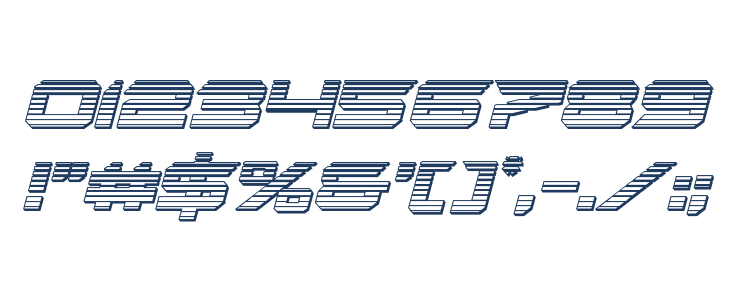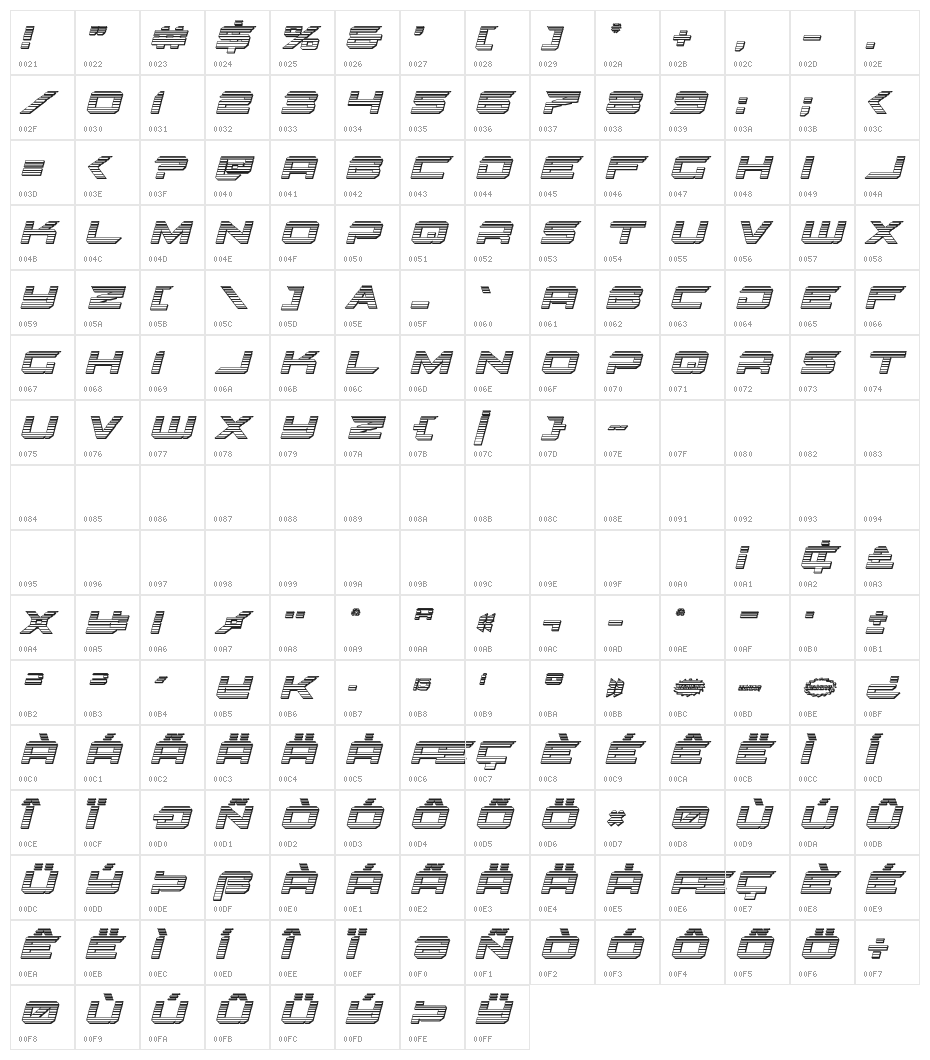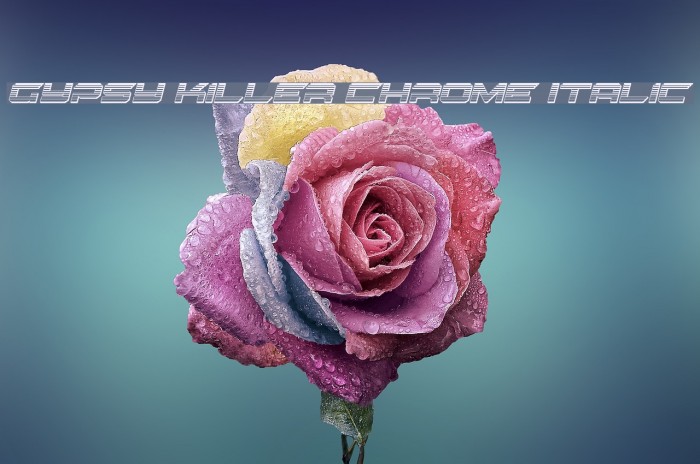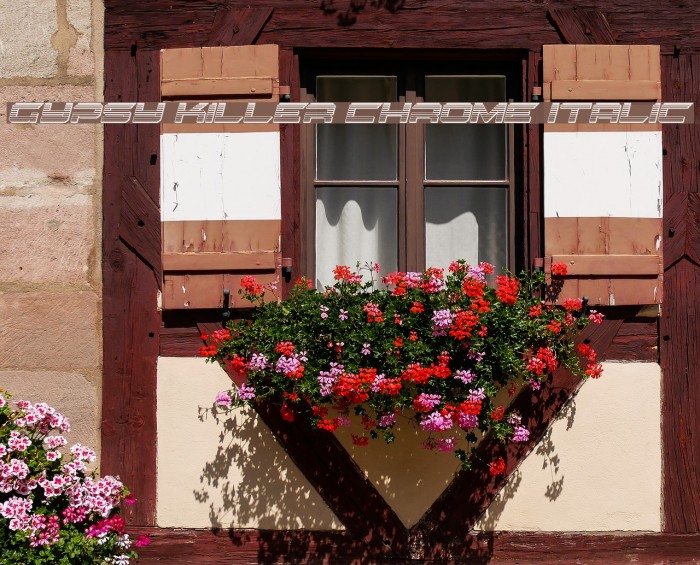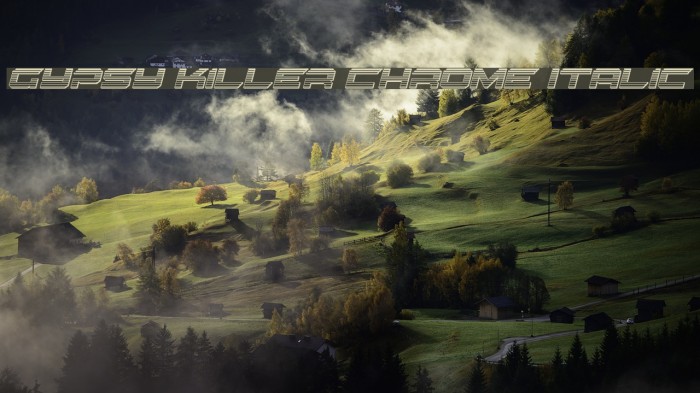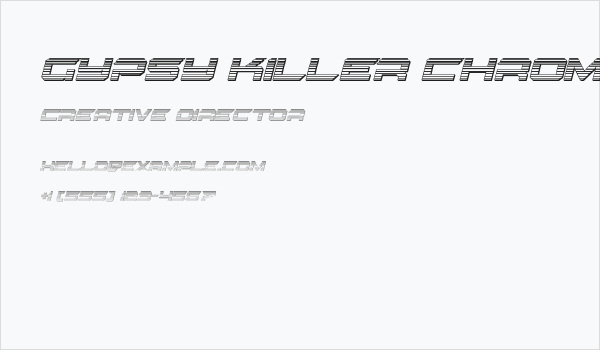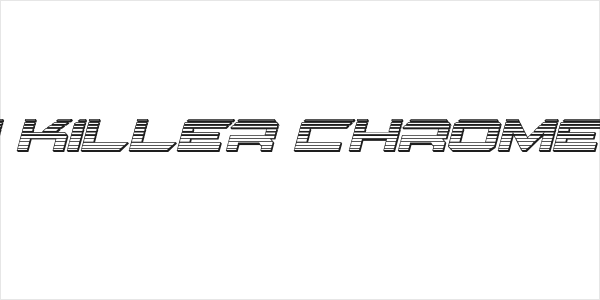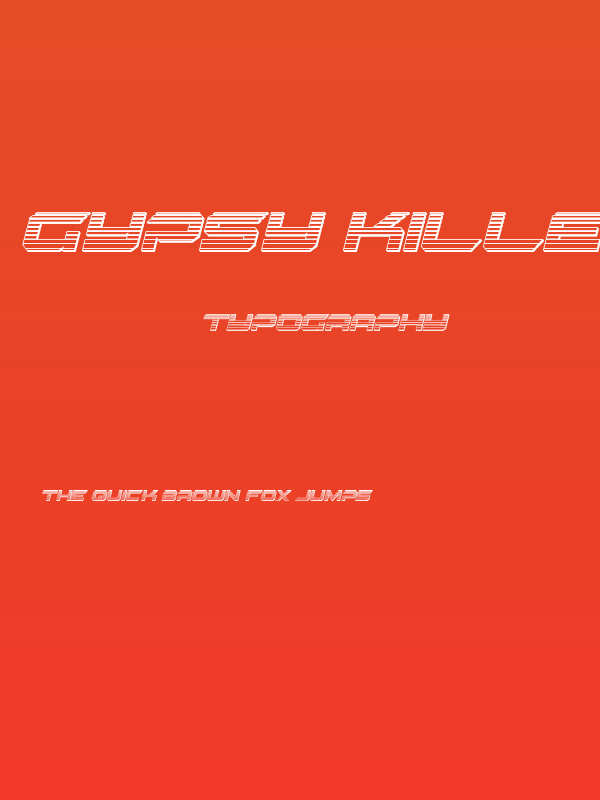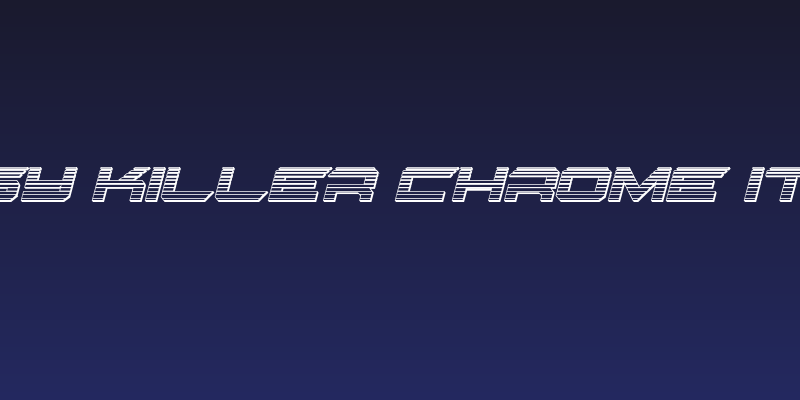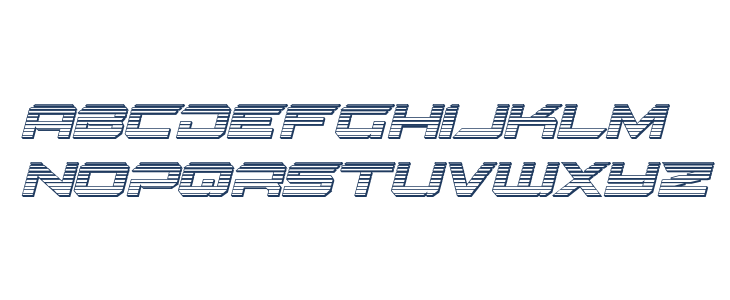
Gypsy Killer Chrome Italic Font
Gypsy Killer Chrome Italic Description
This font features a bold, futuristic design with a chrome-like appearance. The letters are constructed with multiple horizontal lines, creating a layered effect that gives a sense of depth and dimension. The italic slant adds a dynamic and forward-moving feel, making it ideal for projects that require a modern and edgy look. The characters are evenly spaced, ensuring readability while maintaining a unique aesthetic. This font is particularly suitable for digital and print media where a standout, tech-inspired style is desired.